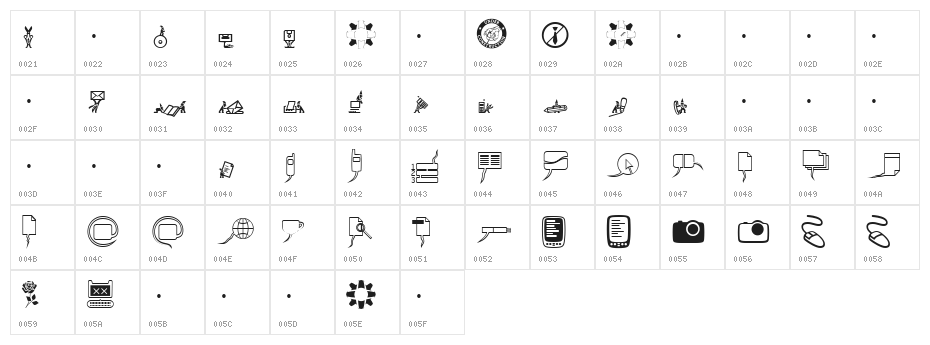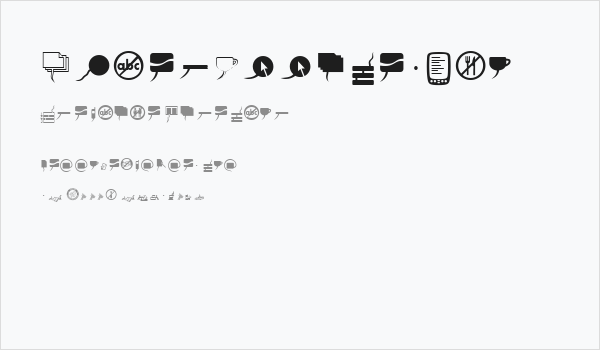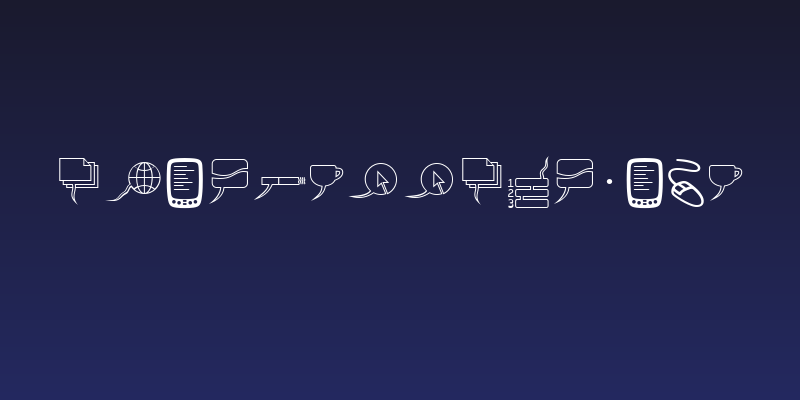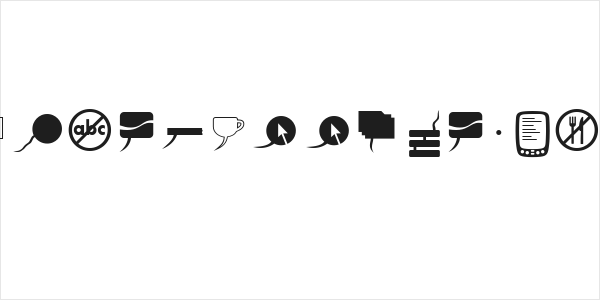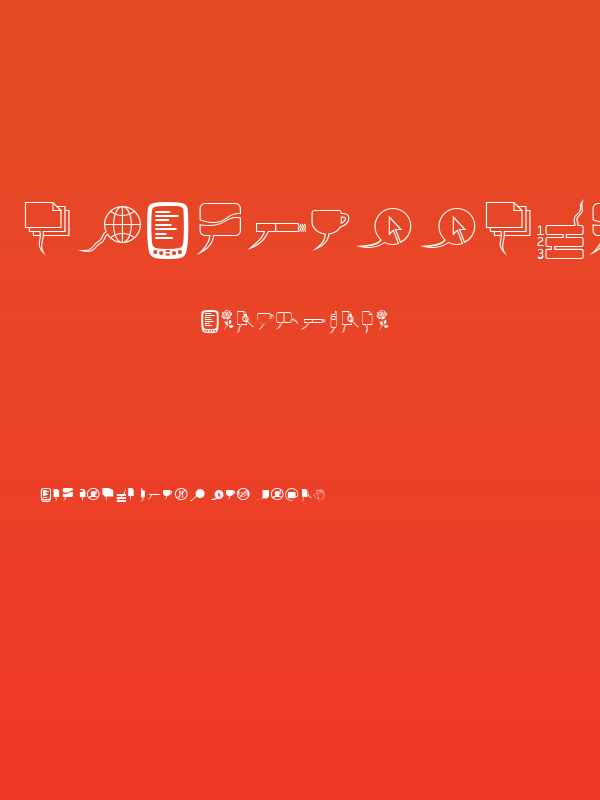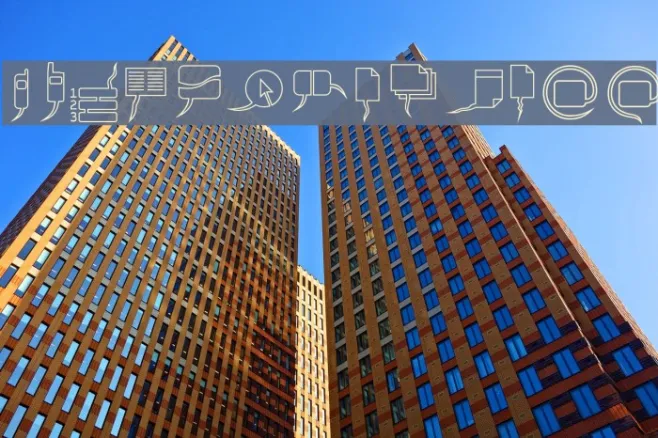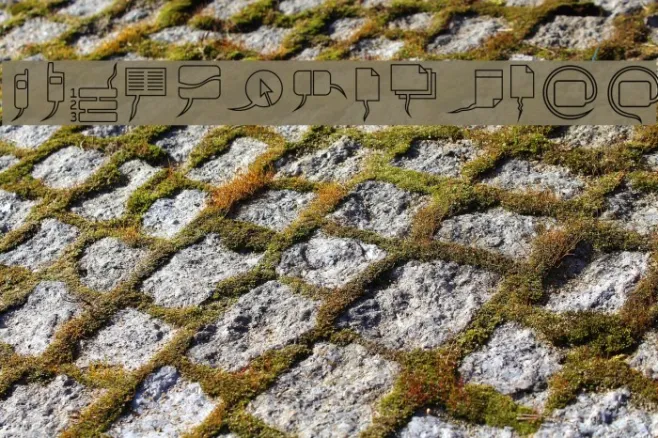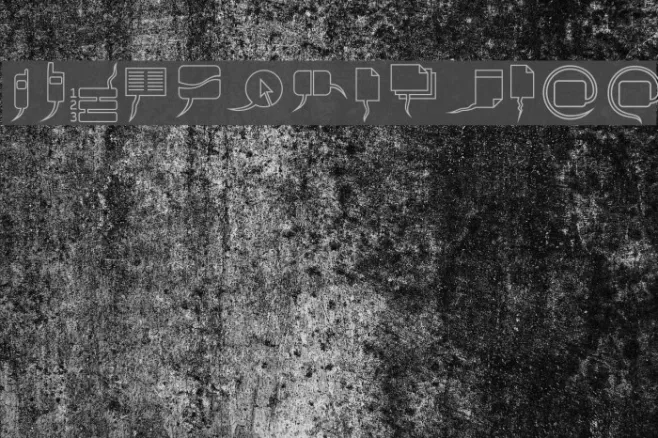
InterOffice-Two Font
InterOffice-Two Description
This is not a traditional font but rather a collection of icons and symbols. Each character is represented by a unique pictogram, ranging from communication devices to various office-related activities and symbols. The style is playful and illustrative, with each icon designed to convey a specific concept or action. The icons are bold and easily recognizable, making them suitable for use in digital interfaces or printed materials where visual communication is key.